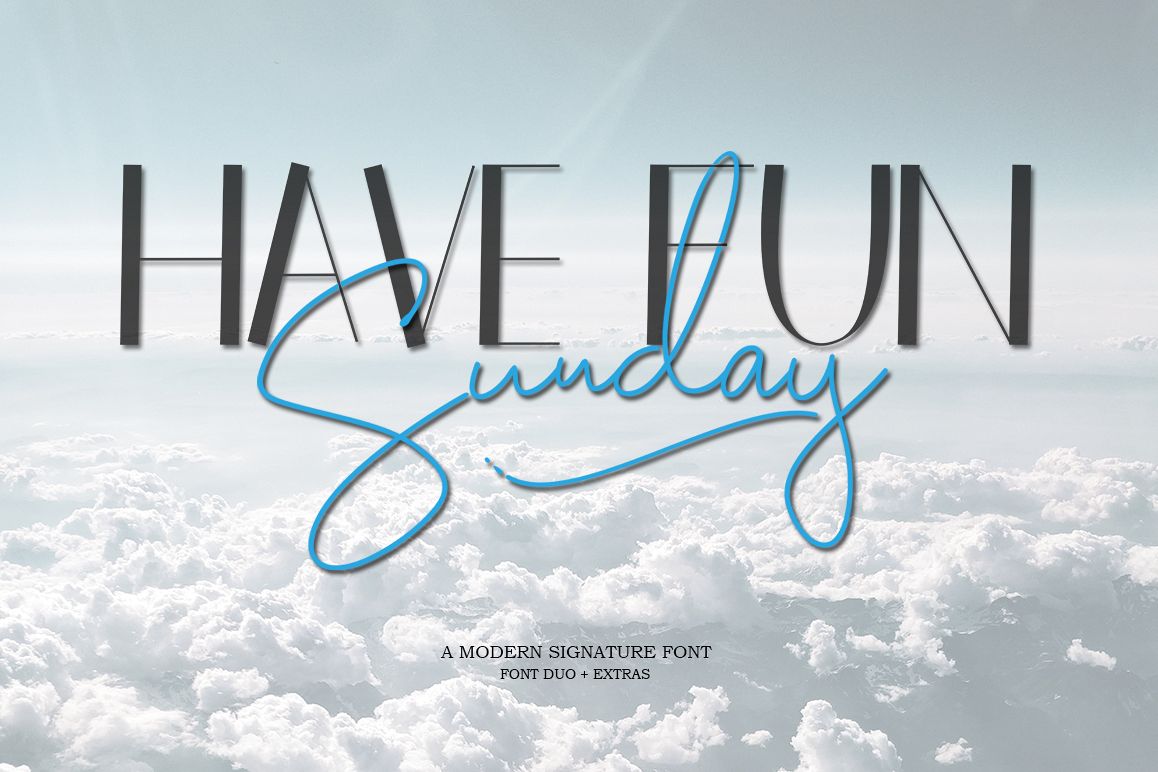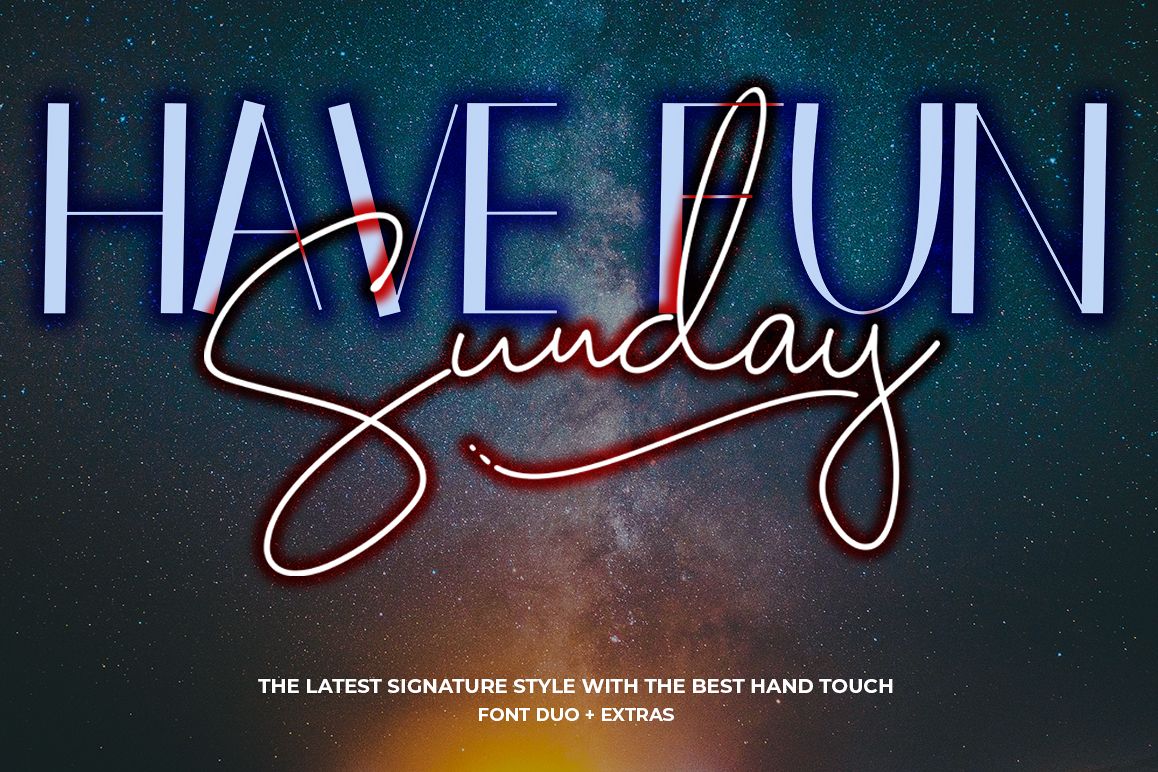
Have Fun Sunday - Font Duo
Have Fun Sunday Font" is a romantic brush font duo with contemporary, sophisticated accents. Suitable for use in watercolor designs. Such as Novel tittle, Apparel, Invitations, Quotes, Books tittle, Stationery Design, Branding, Logos, Greeting Card, T-shirt, Packaging design, Poster and more.Have Fun Sunday Font includes a complete set of uppercase and lowercase letters, as well as multi-language support, numbers, punctuation, ligatures and alternative character,also with additional Have Fun Sunday Font Sans and extra swashes.Files included: